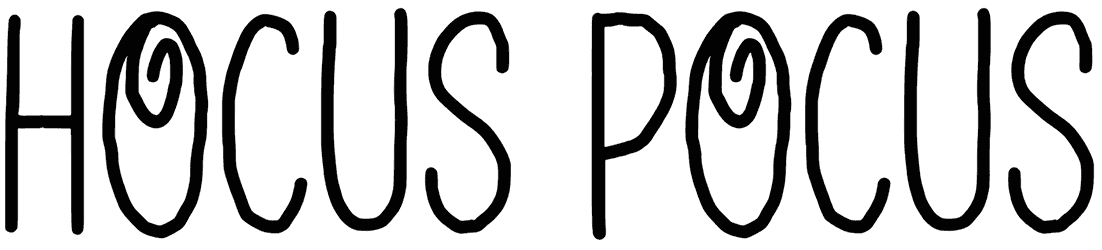
Hocus Pocus Font
Hocus Pocus will let your imagination fly and run an intimate touch of natural handwritten assortment. You can include this handwritten font in personal schemes that call for pure human feelings; greeting cards, quotes, flyers, etc.
Also, this doodle font with a curly holiday style ignites the power to improve your design in a gorgeous way. So if you enjoy bringing magnificence and excitement to your coming graphics, keep this versatility in your toolbox.